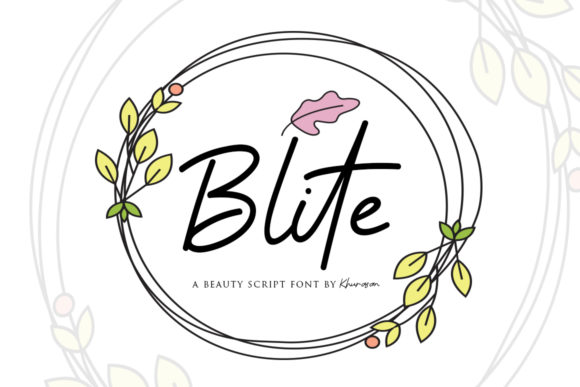
The Blite Font: Elevate Your Design with Classic Flair
I still remember the frustration of working on a wedding invitation design project, searching for the perfect font to capture the elegance and sophistication of the occasion. The client wanted something that exuded luxury, but not stuffiness. After hours of browsing through font libraries, I stumbled upon Blite Font, and it was love at first sight! 💕 In this article, I’ll share my experience with Blite, its features, and how to make the most of it in various design platforms.
An Honest Review of Blite Font
What I Love About Blite Font
- ✨ Unique Style: Blite brings a fresh spin to classic typography, making it perfect for designs that require a touch of sophistication.
- ✅ Versatility: This font is incredibly versatile and can be used for a wide range of design projects, from branding and headings to wedding designs, invitations, signatures, logos, labels, and more!
- 💯 High-Quality: The font is beautifully crafted with attention to detail, ensuring that it looks great in any design.
While Blite Font is an excellent choice for many design projects, there are a few things to keep in mind:
- ⚠️ Limited use in body text: Due to its elegant and cursive nature, Blite might not be the best choice for lengthy body text. It’s better suited for headings, titles, and short paragraphs.
- 🤔 Requires careful kerning: As with any font, kerning is essential to ensure that the text looks visually appealing. Take the time to adjust the kerning to achieve the best results.
- Experiment with OpenType features, such as glyphs and stylistic alternates, to add more personality to your design.
The Backstory of Blite Font
Blite Font was designed with the intention of bringing classic typography to the modern design world. The designer aimed to create a font that would be both elegant and versatile, suitable for a wide range of design projects. The result is a beautiful, unique font that adds a touch of sophistication to any design.
Q: What type of designs is Blite Font best suited for?
A: Blite Font is perfect for designs that require a touch of elegance and sophistication, such as wedding designs, luxury branding, headings, titles, and short paragraphs.
Q: Is Blite Font suitable for body text?
A: While Blite Font is beautiful, it’s not ideal for lengthy body text. It’s better suited for headings, titles, and short paragraphs.